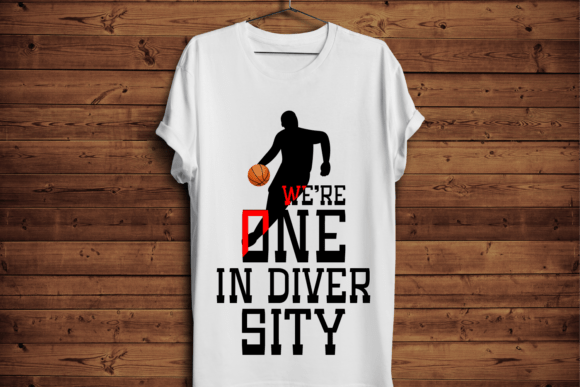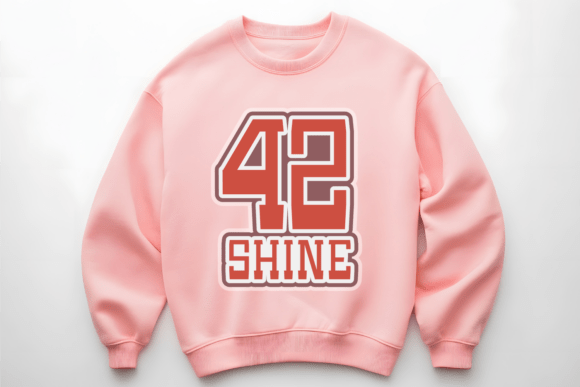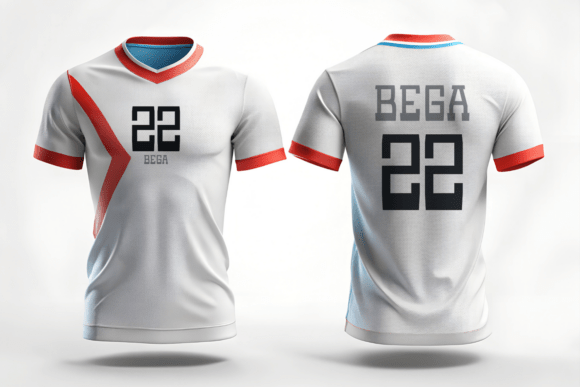
Introduction to Sinoba Font
The β€œSinoba” font looks like a strong and dynamic typeface, perfect for sports themes and titles that need visual impact.
This shows that this font has the typical serif characteristics (small lines at the end of the letter strokes) but with a thicker, bolder, and more modern touch, which distinguishes it from traditional serifs, which are often more formal The slightly boxy and bold letterforms, combined with the clear outlines, give a dynamic and even slightly aggressive impression, perfect for sports contexts that are often synonymous with competition and speed.
Key Features of Sinoba Font
Why Choose Sinoba Font?